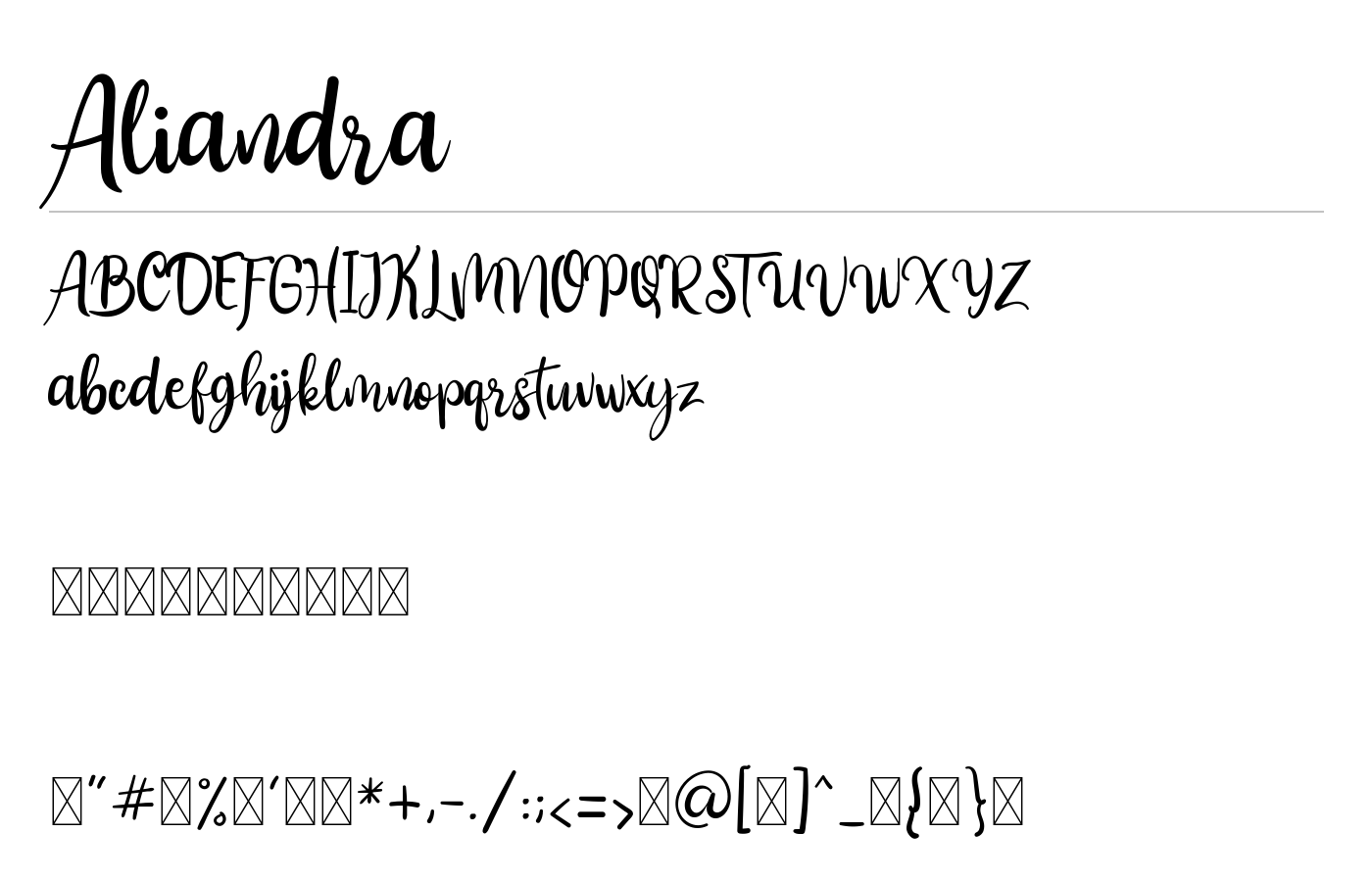
Aliandra is a charming handwritten script font with a casual, friendly vibe, featuring smooth, flowing strokes and a moderate x-height that keeps it readable yet personal. Its elegant, slightly playful letterforms make it ideal for creative projects, branding, invitations, and headline use where a warm, approachable style is desired. This font works beautifully to add a touch of personality and charm to any design without sacrificing clarity.
Aliandra Font
About Aliandra Font
| Font family | Aliandra Font |
| Designer | Ana Natalia |